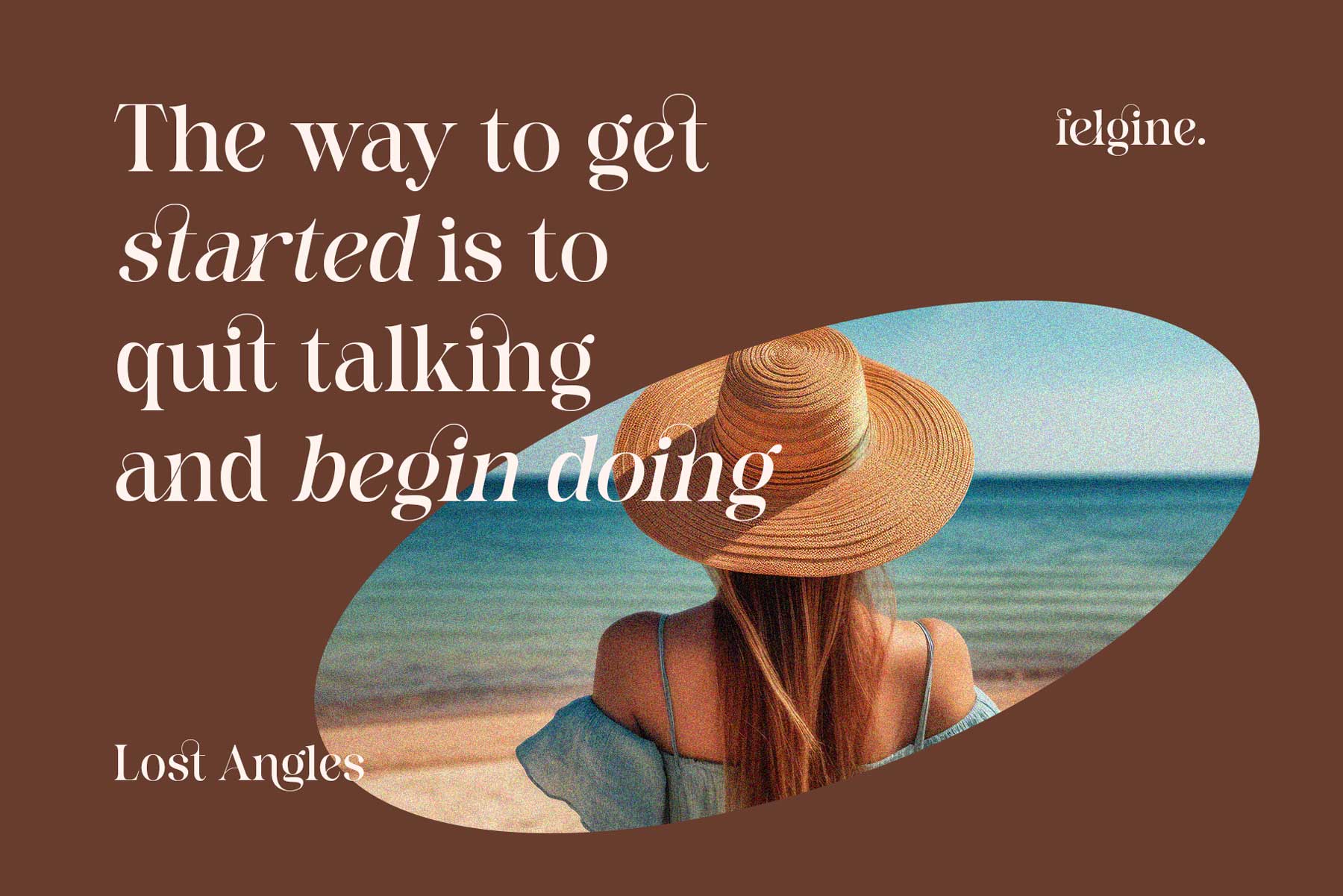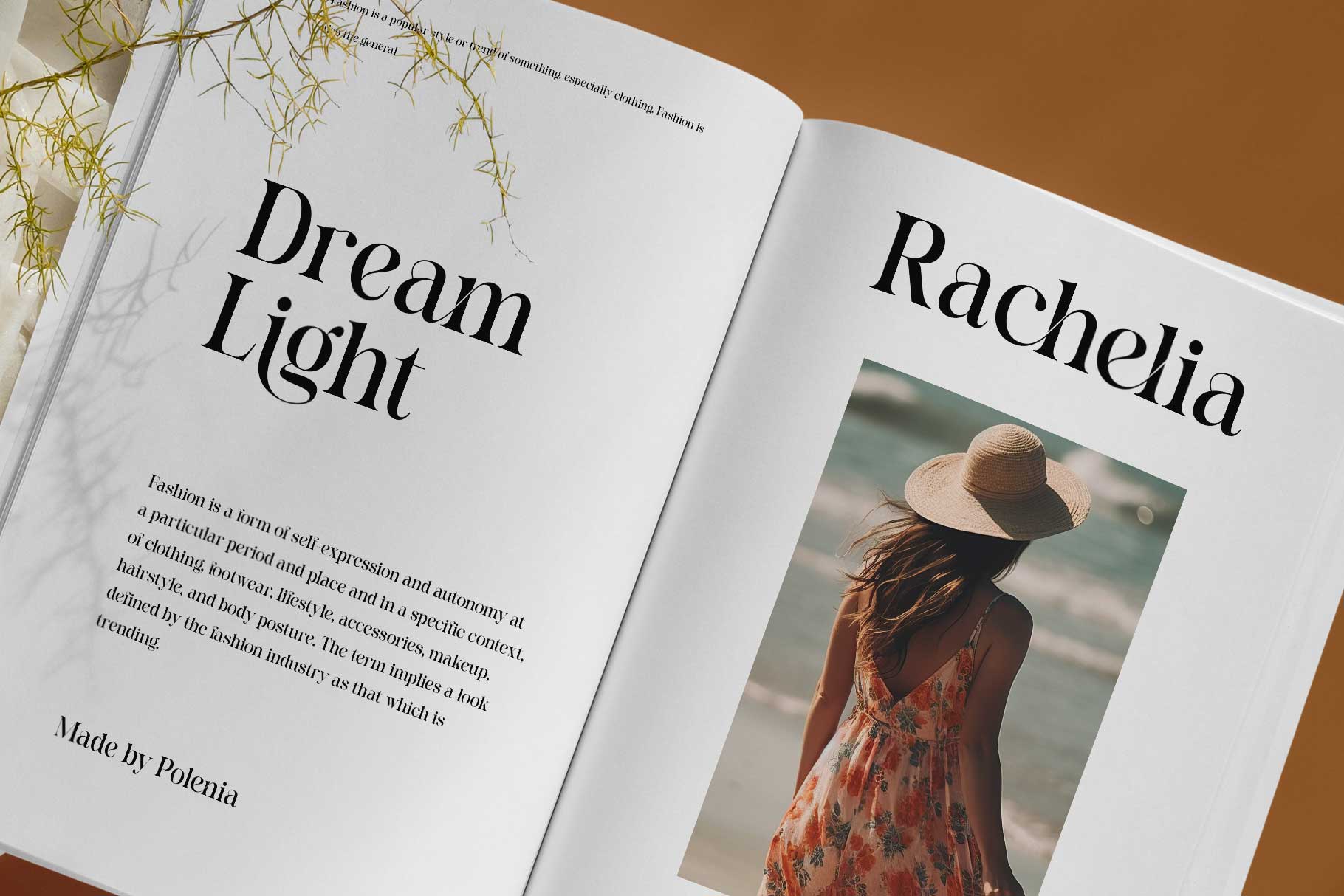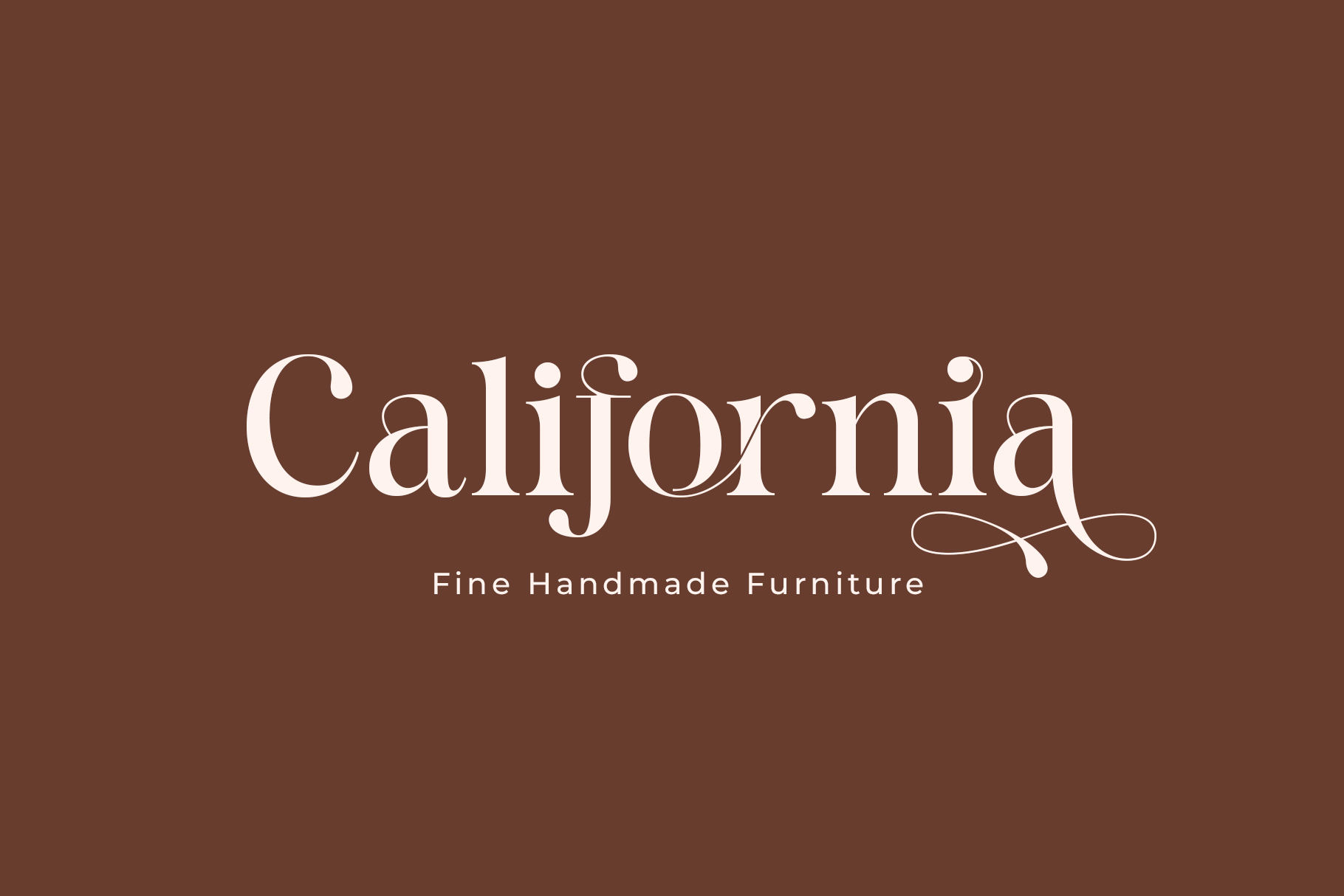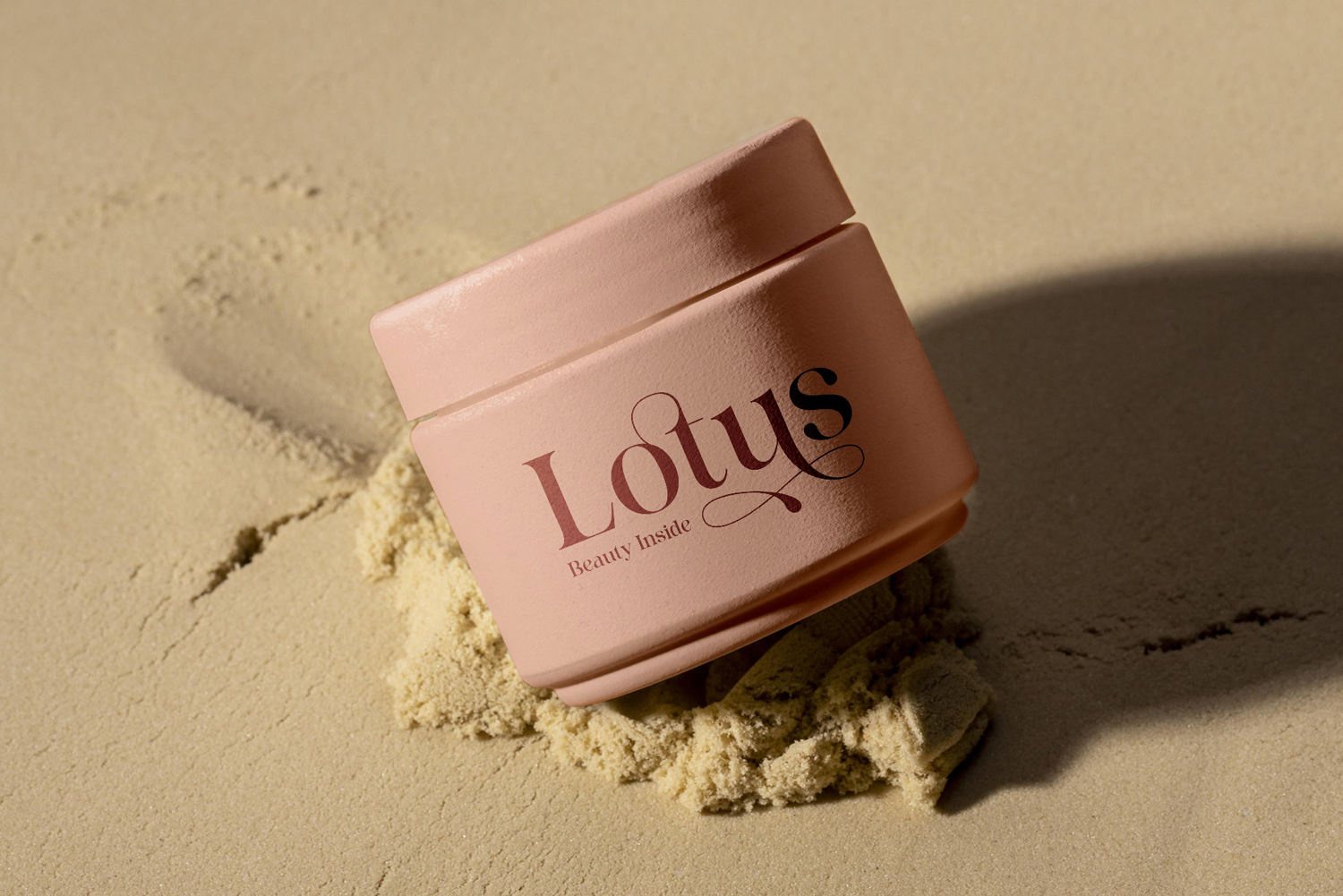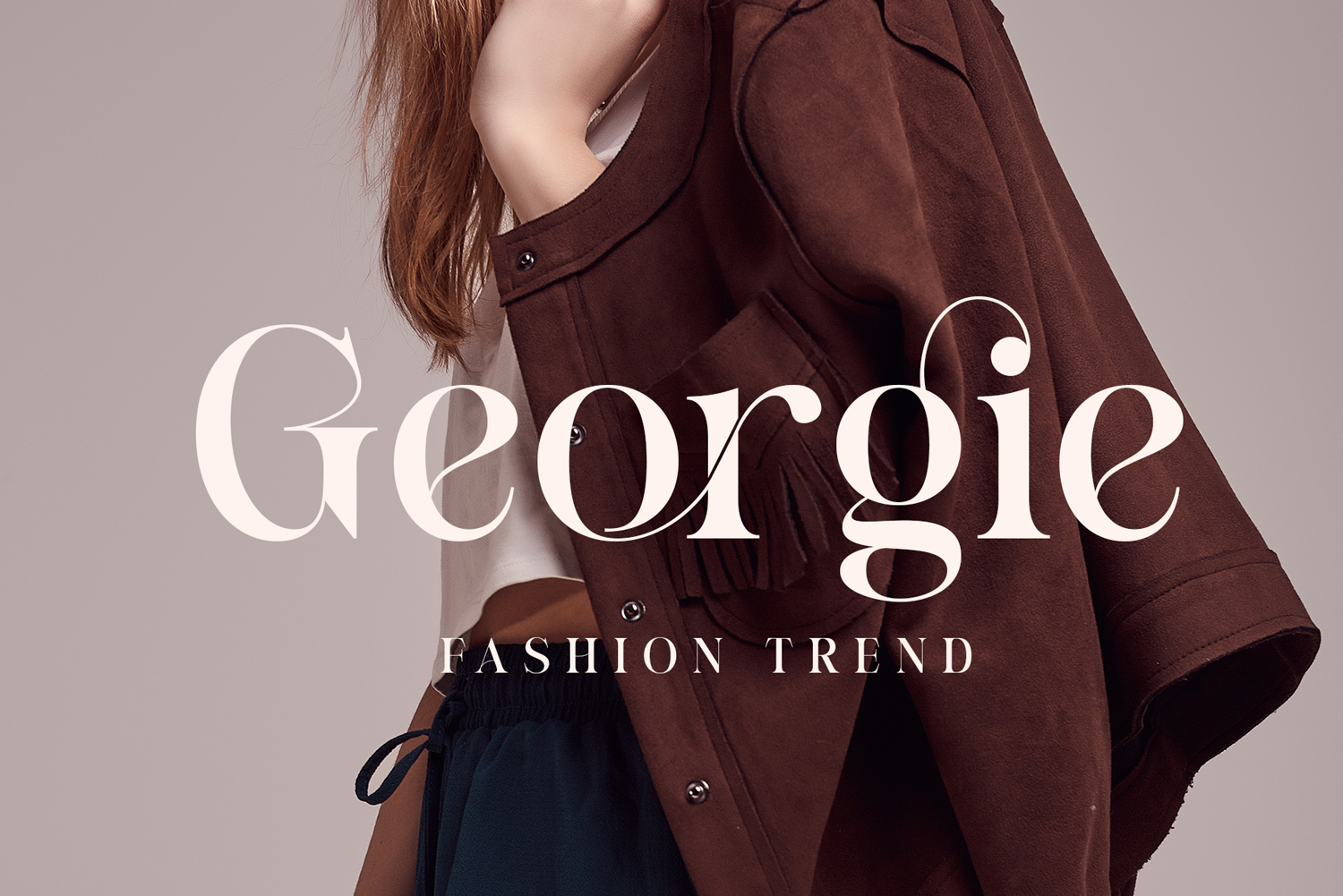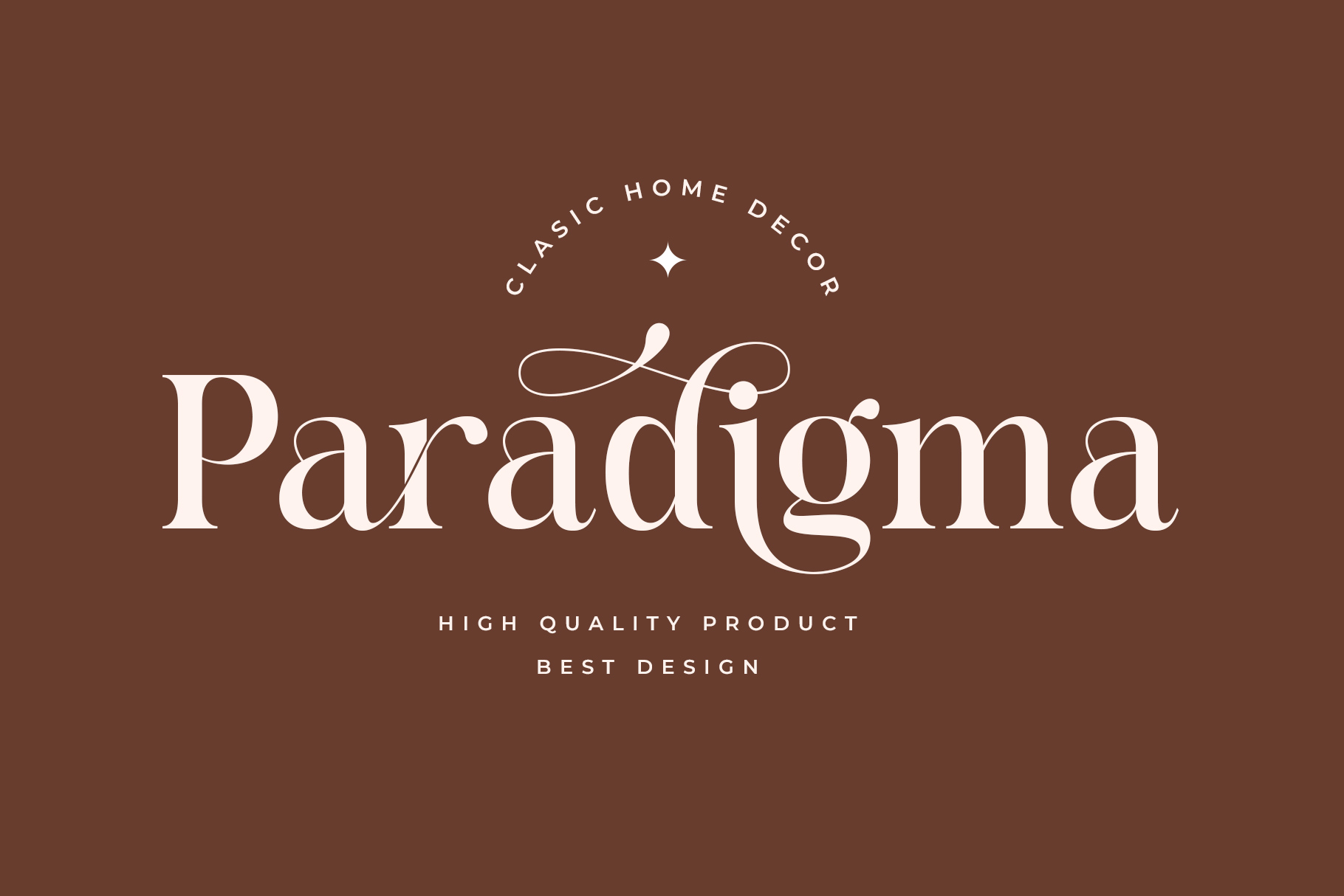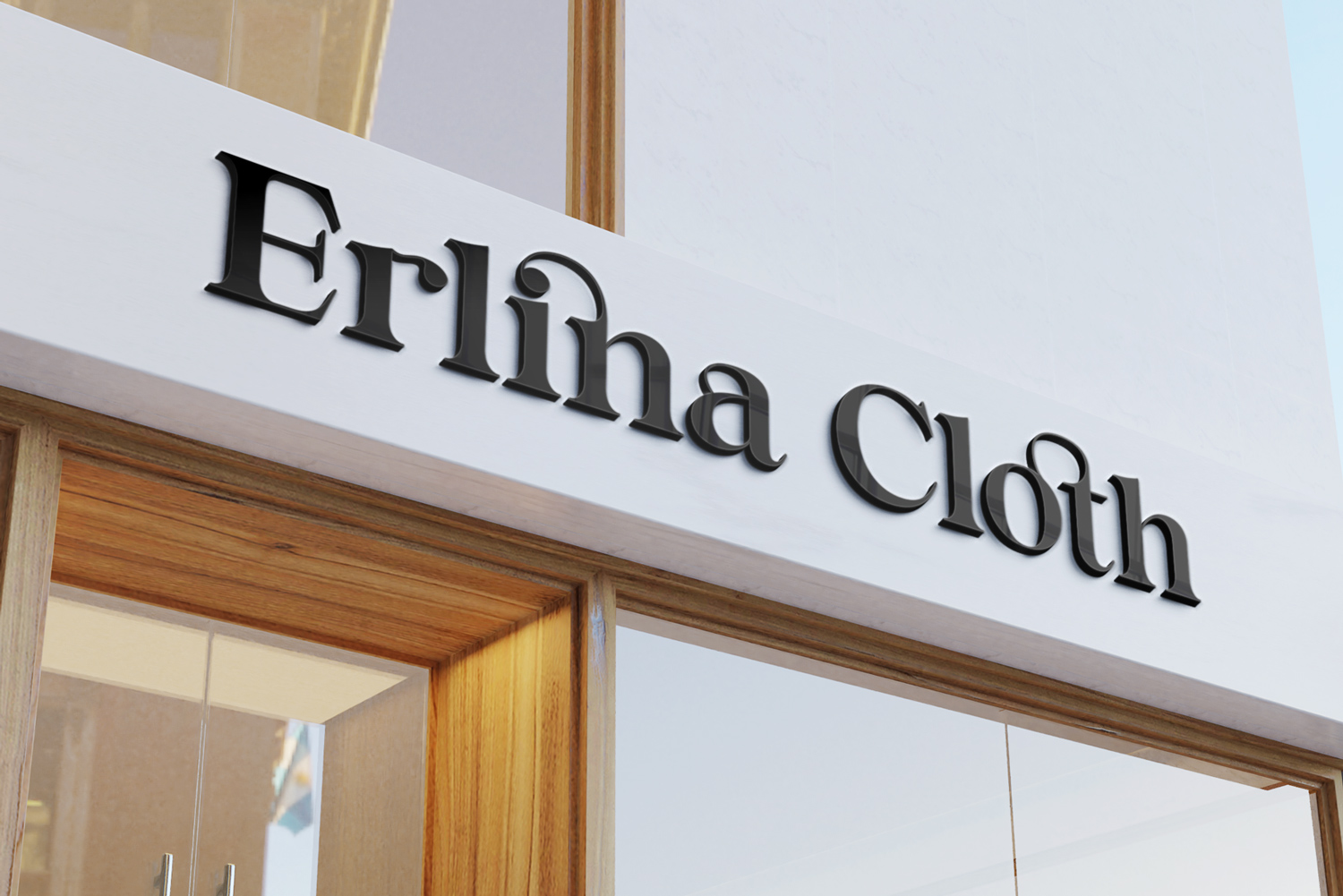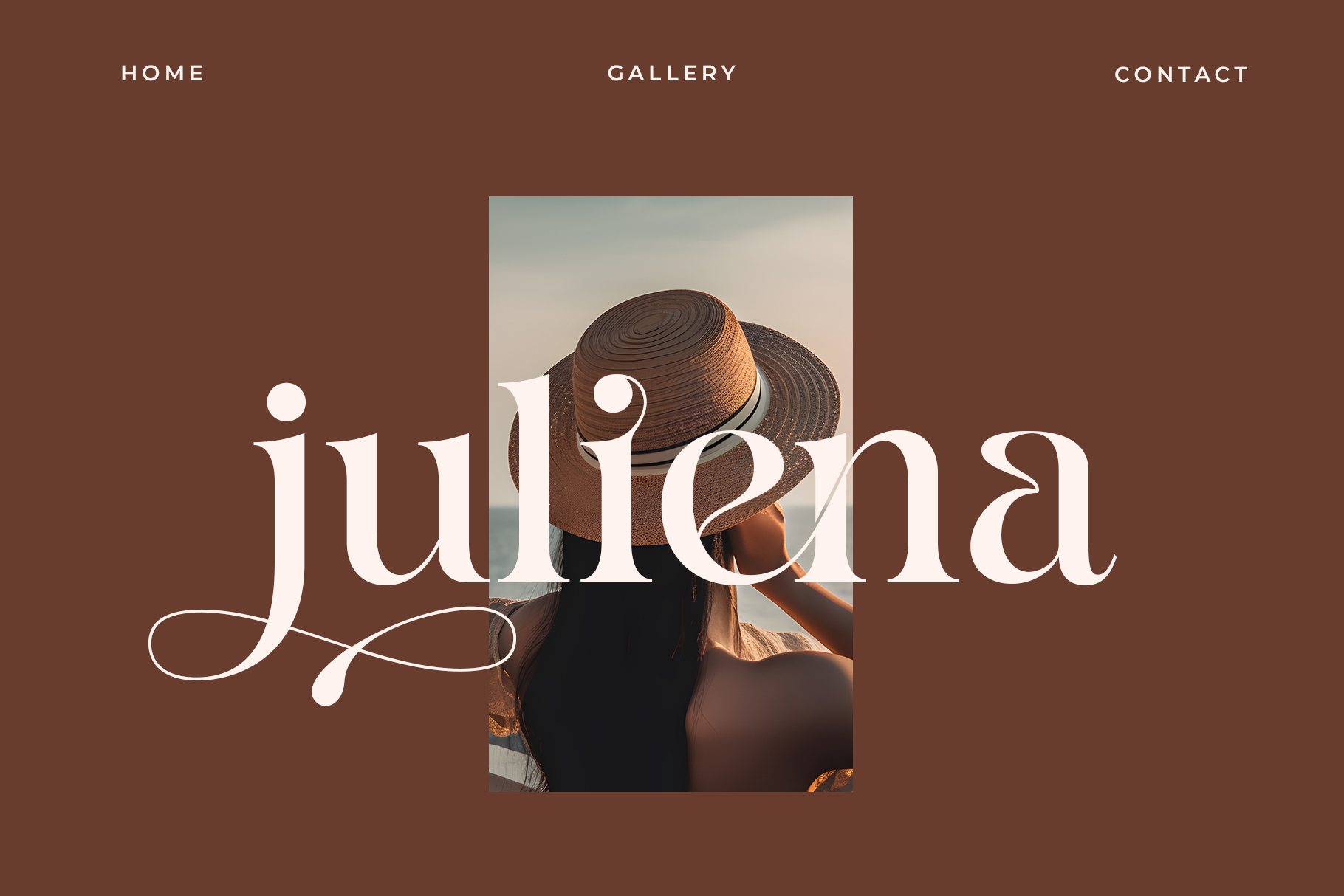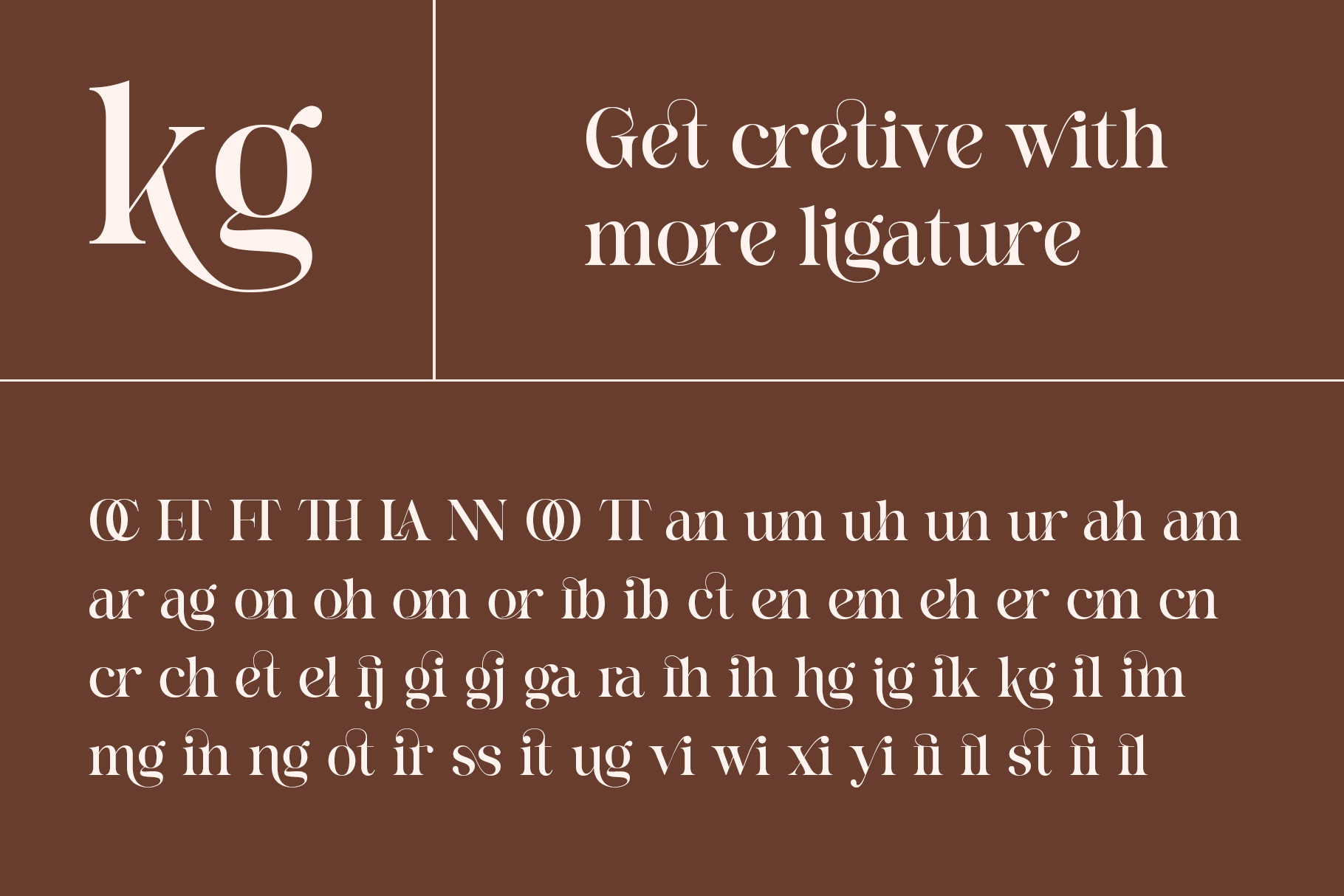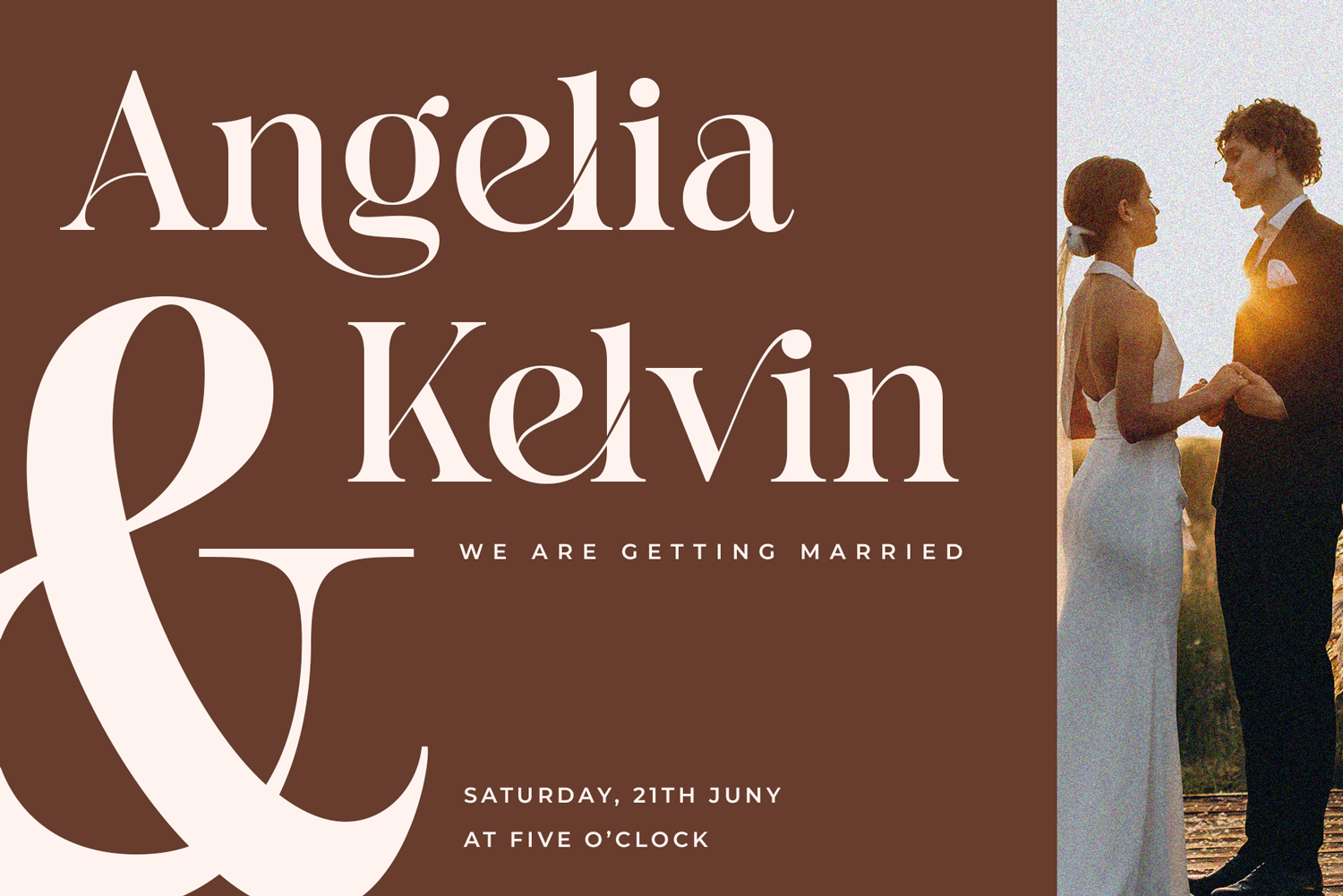
Felgine Ligature Serif Font
Felgine- a chic & elegant display modern serif with beautiful contrast and have unique ligature for optional. Specially designed for fashion-themed projects, perfectly suitable for creating elegant, chic, lifestyle design such as logos, title, and magazine, and more. Now you have more choice when using Felgine for typography.
Felgine – I’ve also love combination the reguler and italic make cool and nostalgic. Felgine is a beautiful choice for any creative endeavor, creating elegant, modern, chic, lifestyle design such as logotype, title, cover, branding, invitations, wedding designs, display and magazine, social media posts, advertisements, printed quotes, product packaging, corporate brand, product designs, labels, photography, watermarks, special events and any other project with elegant or nostalgic touch.